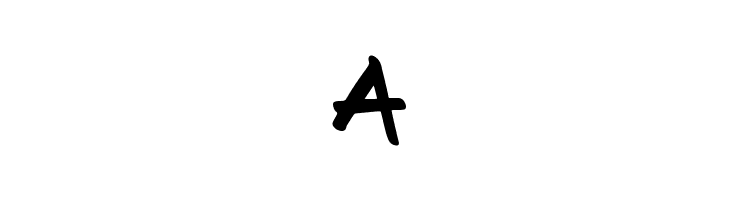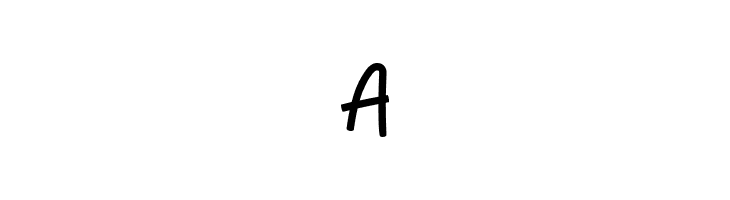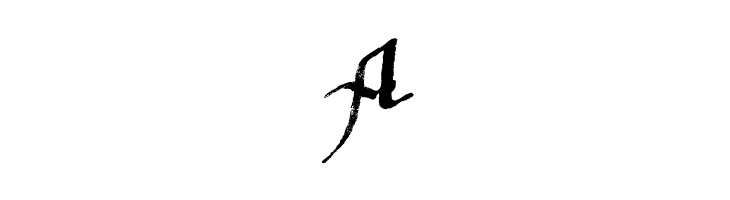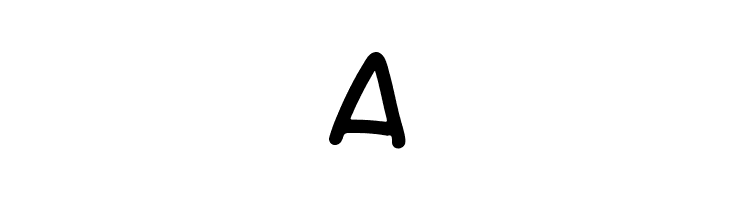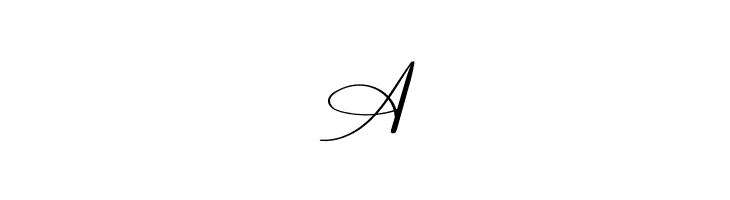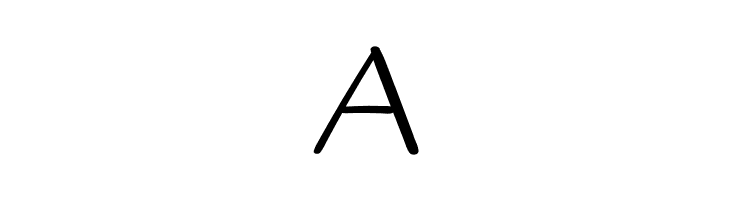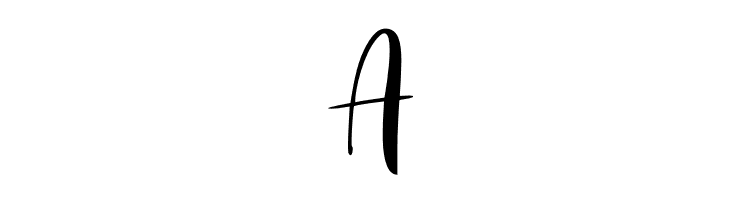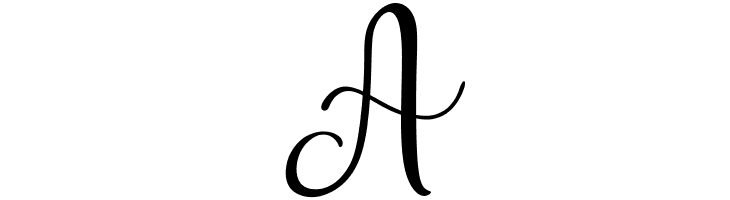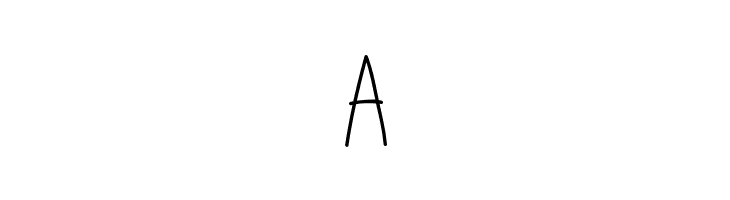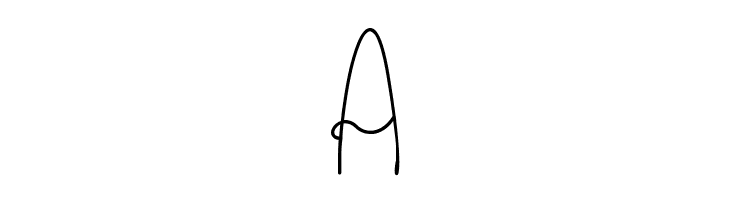
( Fonts by Balpirick Studio - https://www.creativefabrica.com/designer/balpirick/ref/308299/ - Personal-use only. For commercial use please contact owner. ) A playful, rounded handwritten font with a bold and friendly style. Download 85 Downloads@WebFont
( Fonts by Aqeela Studio - Muhammad Nasir - Personal-use only. For commercial use please contact owner. ) An elegant script font with flowing, interconnected letters and graceful swashes. Download 73 Downloads@WebFont
( Fonts by Eknoji Studio - www.eknojistudio.com - Personal-use only. For commercial use please contact owner. ) A playful, bold, hand-drawn font with outlined characters. Download 560 Downloads@WebFont
( Fonts by Allouse Studio - Personal-use only. For commercial use please contact owner. ) A playful, handwritten font with smooth, rounded edges and a casual style. Download 252 Downloads@WebFont
( Fonts by AZ Std - Muh Aswar - Personal-use only. For commercial use please contact owner. ) A bold, handwritten font with playful curves and a casual, dynamic style. Download 40 Downloads@WebFont
( Fonts by Allouse Studio - Personal-use only. For commercial use please contact owner. ) A playful, handwritten font with irregular, organic strokes and a casual vibe. Download 130 Downloads@WebFont
( Fonts by AminMario - Amin Mario - Personal-use only. For commercial use please contact owner. ) A bold, expressive script font with a handwritten feel. Download 34 Downloads@WebFont
( Fonts by AminMario - Amin Mario - Personal-use only. For commercial use please contact owner. ) A playful handwritten font with bold, rounded strokes and a casual feel. Download 89 Downloads@WebFont
( Fonts by Ana - Personal-use only. For commercial use please contact owner. ) A blackletter font with sharp, angular forms and a gothic, calligraphic style. Download 46 Downloads@WebFont
( Fonts by Attype Studio - Fadli Ramadhan Iskandar - Personal-use only. For commercial use please contact owner. ) A flowing, cursive script font with elegant, connected letters. Download 33 Downloads@WebFont
( Fonts by DmLetter31 - Dimas Prasetyo - Personal-use only. For commercial use please contact owner. ) A playful, bold handwritten font with rounded edges and a casual style. Download 74 Downloads@WebFont
( Fonts by Erik Studio - Personal-use only. For commercial use please contact owner. ) A graceful and elegant script font with flowing cursive letterforms. Download 52 Downloads@WebFont
( Fonts by Erik Studio - Personal-use only. For commercial use please contact owner. ) A playful and whimsical font with smooth curves and slightly irregular strokes. Download 221 Downloads@WebFont
( Fonts by Faqih Fawaji - Personal-use only. For commercial use please contact owner. ) A casual, handwritten font with a playful and friendly style. Download 56 Downloads@WebFont
( Fonts by Green Adventure Studio - Ardi Parwito - Personal-use only. For commercial use please contact owner. ) A bold, expressive handwritten font with dynamic and fluid strokes. Download 37 Downloads@WebFont
( Fonts by Haksen Studio - Sarwo Edhi Prayitno - Personal-use only. For commercial use please contact owner. ) A lively, expressive handwritten font with dynamic strokes and elegant curves. Download 55 Downloads@WebFont
( Fonts by Hanoded - David Kerkhoff - Personal-use only. For commercial use please contact owner. ) A playful, hand-drawn font with a casual, doodle-like style. Download 85 Downloads@WebFont
( Fonts by Kurnia Setyadi - Personal-use only. For commercial use please contact owner. ) An elegant, flowing script font with ornate uppercase and smooth lowercase letters. Download 42 Downloads@WebFont
( Fonts by Letter Jos - Personal-use only. For commercial use please contact owner. ) A playful and casual script font with smooth, flowing lines and rounded edges. Download 45 Downloads@WebFont
( Fonts by Letteratom - Kurniawan Eko - Personal-use only. For commercial use please contact owner. ) A bold, playful handwritten font with a casual and quirky style. Download 44 Downloads@WebFont
( Fonts by Letterhend Studio - Hendry Juanda - Personal-use only. For commercial use please contact owner. ) A casual, handwritten font with fluid, connected strokes and dynamic thickness. Download 79 Downloads@WebFont
( Fonts by Mans Greback - Personal-use only. For commercial use please contact owner. ) A thin, elegant script font with underlined characters and a flowing, cursive style. Download 43 Downloads@WebFont
( Fonts by Mans Greback - Personal-use only. For commercial use please contact owner. ) A modern sans-serif font with geometric shapes and uniform strokes. Download 62 Downloads@WebFont
( Fonts by Mans Greback - Personal-use only. For commercial use please contact owner. ) A sleek, modern, and light italic font with a minimalistic design. Download 39 Downloads@WebFont
( Fonts by Mans Greback - Personal-use only. For commercial use please contact owner. ) A bold, modern sans-serif font with clean lines and uniform spacing. Download 80 Downloads@WebFont
( Fonts by Arendx Studio - Personal-use only. For commercial use please contact owner. ) A playful, bold font with dynamic slanted letters and decorative underlines. Download 31 Downloads@WebFont
( Fonts by Dankin Don - Personal-use only. For commercial use please contact owner. ) A playful, casual handwritten font with smooth, flowing curves. Download 55 Downloads@WebFont